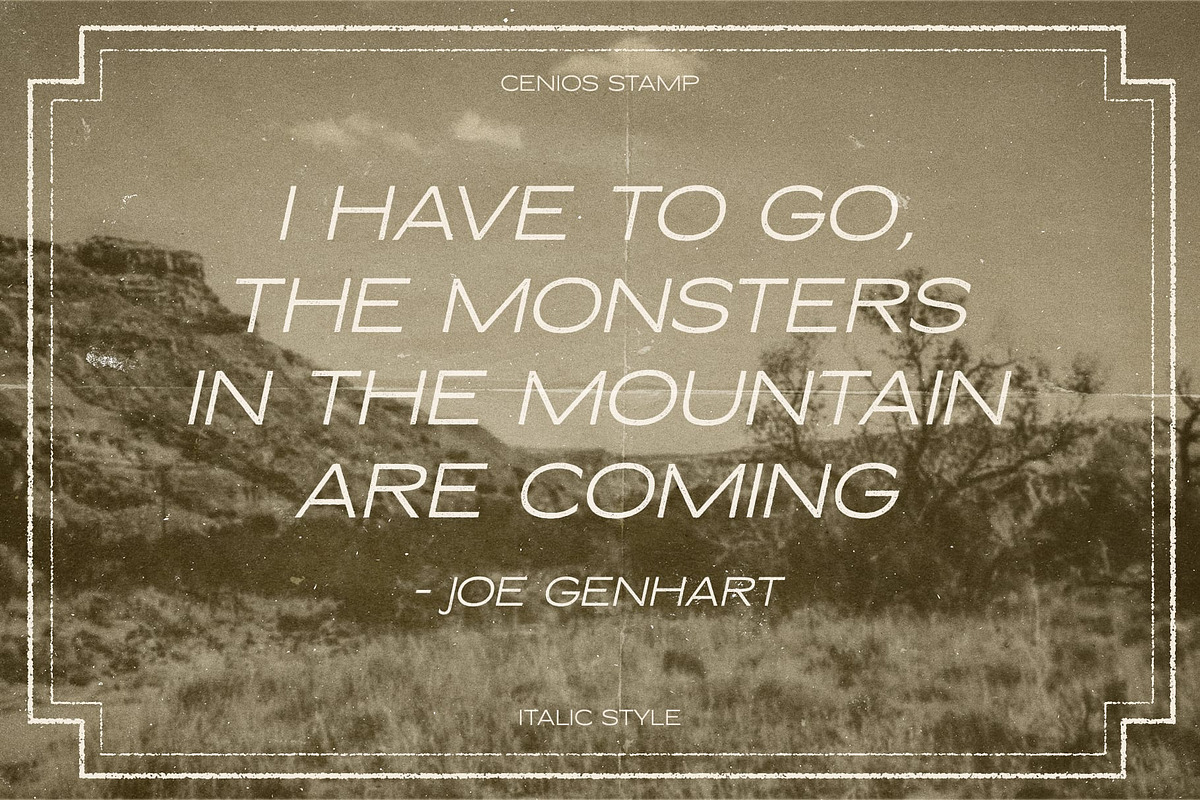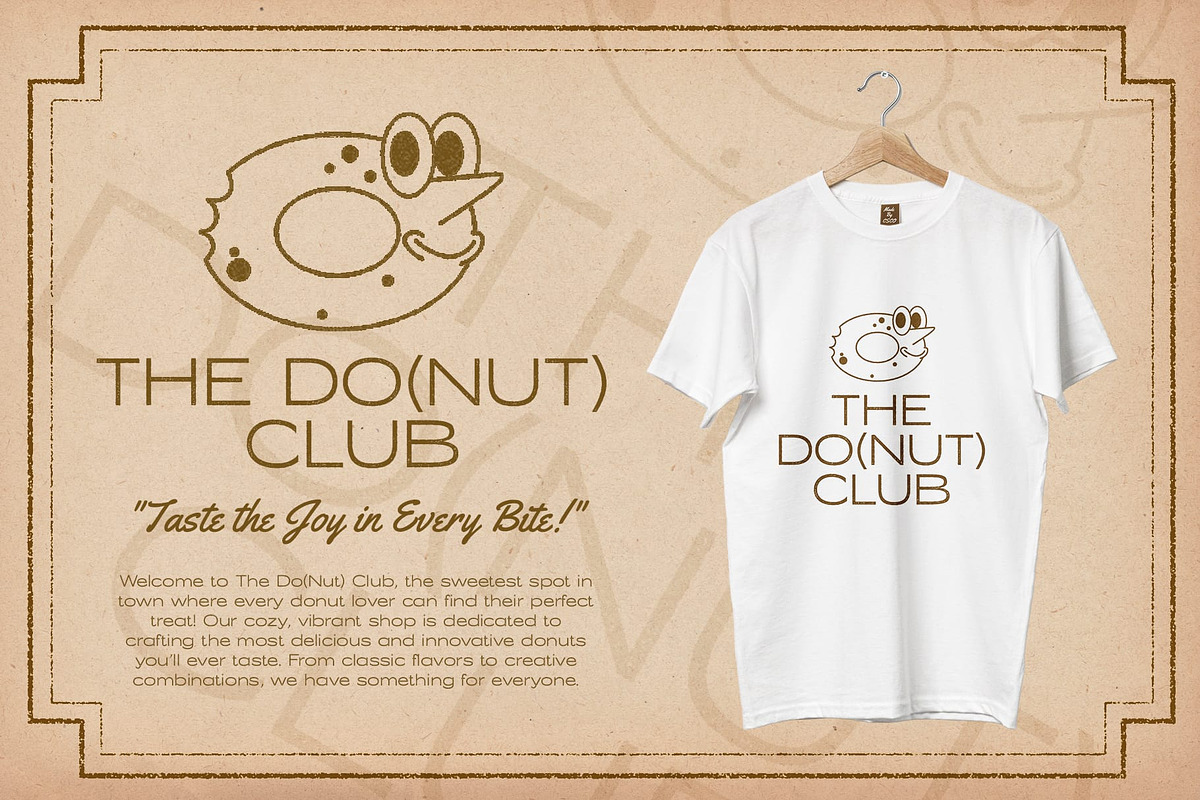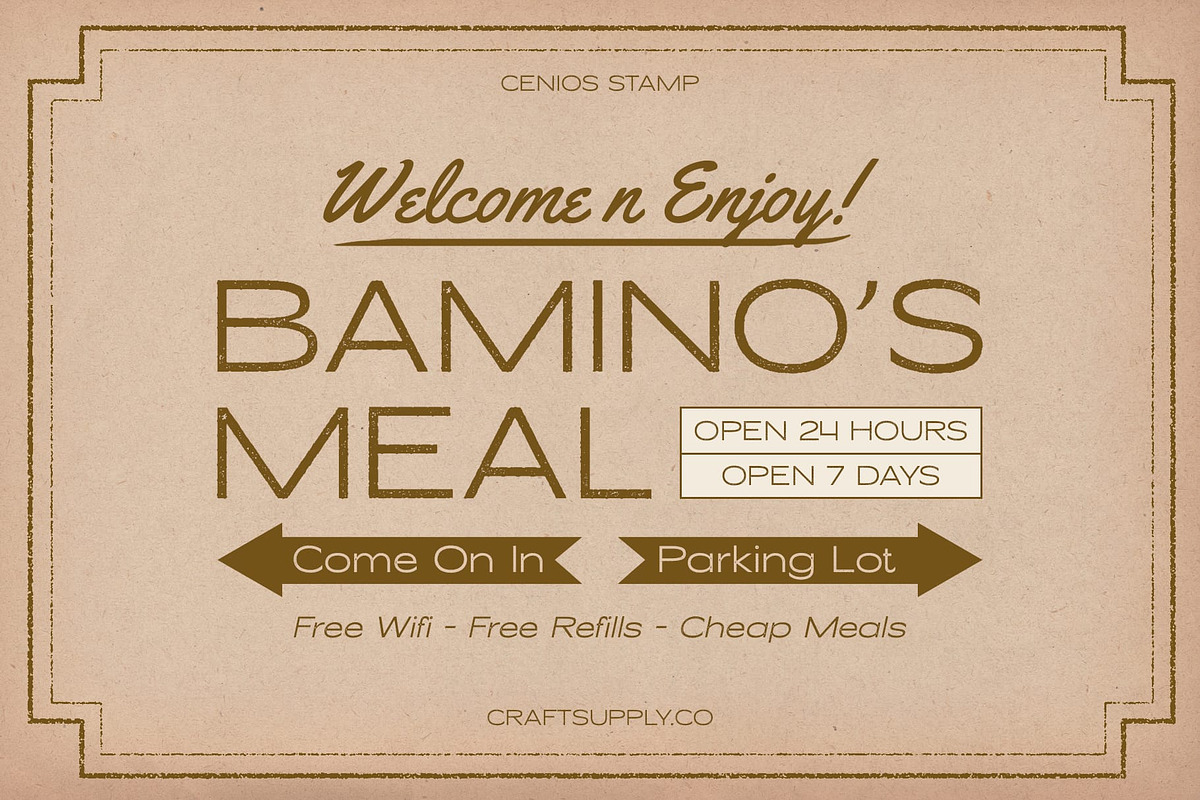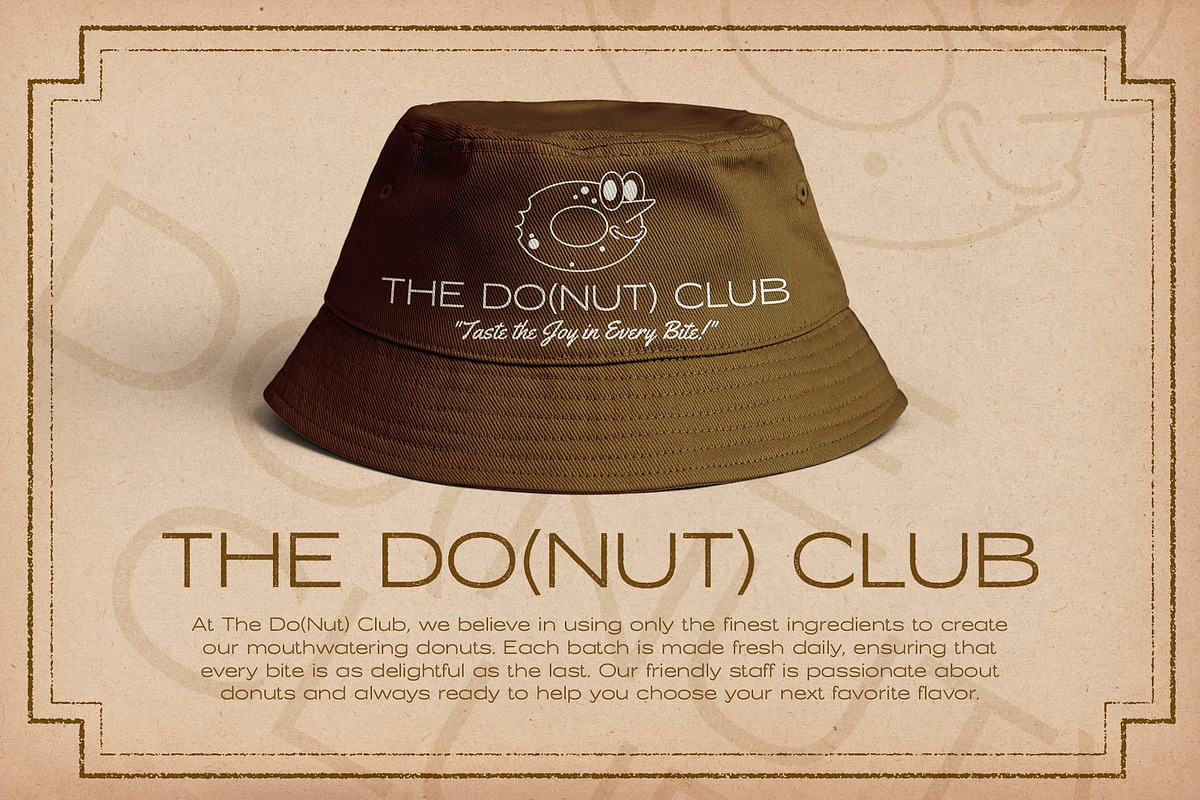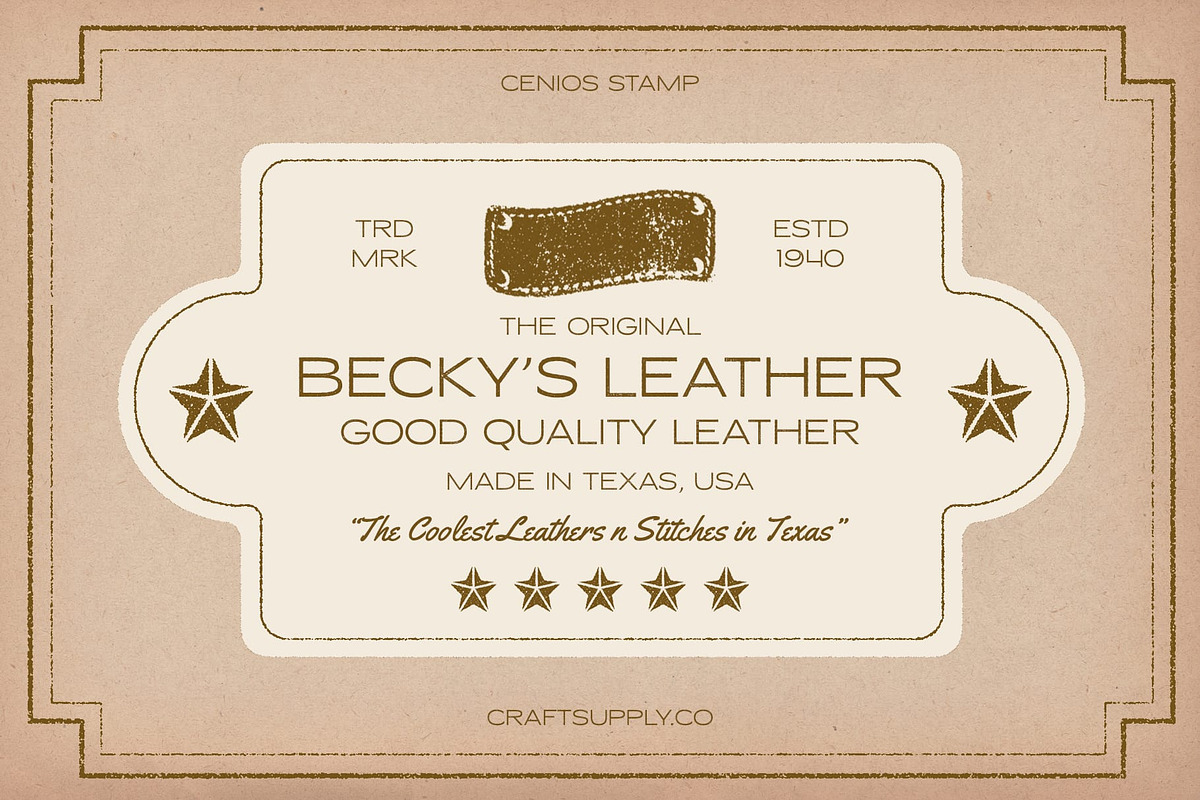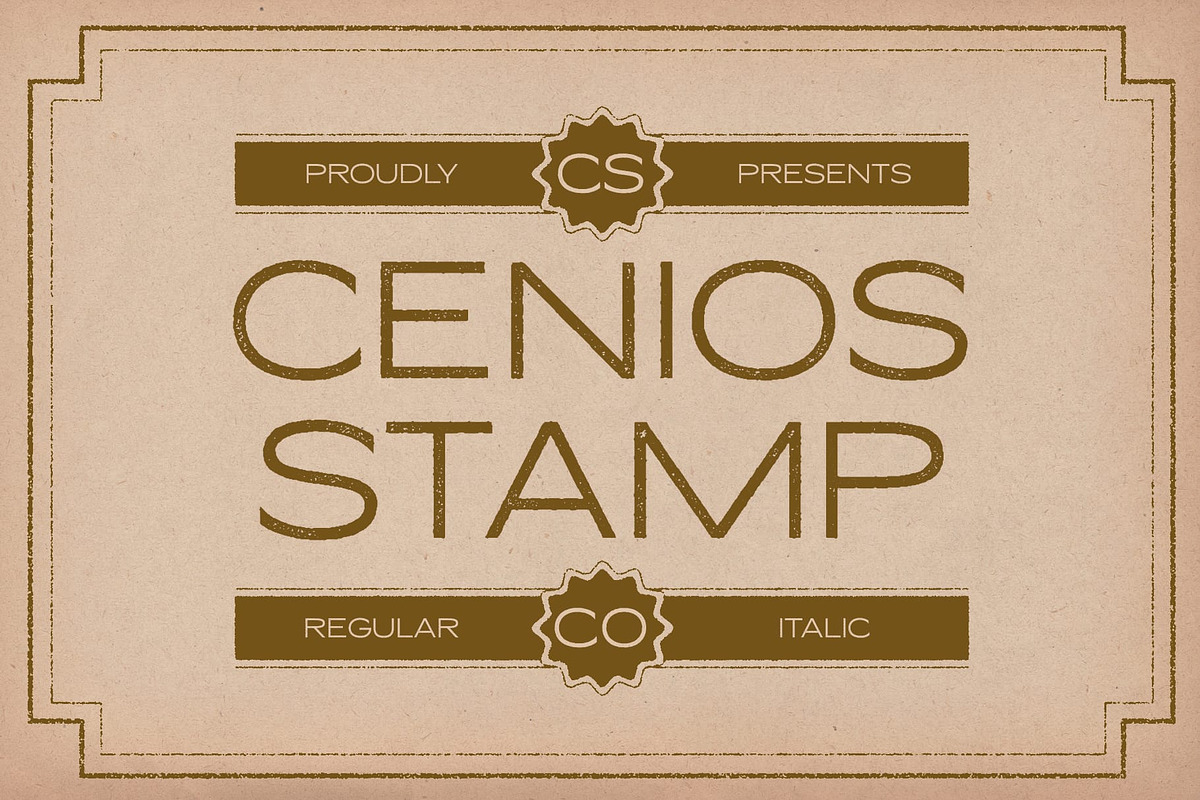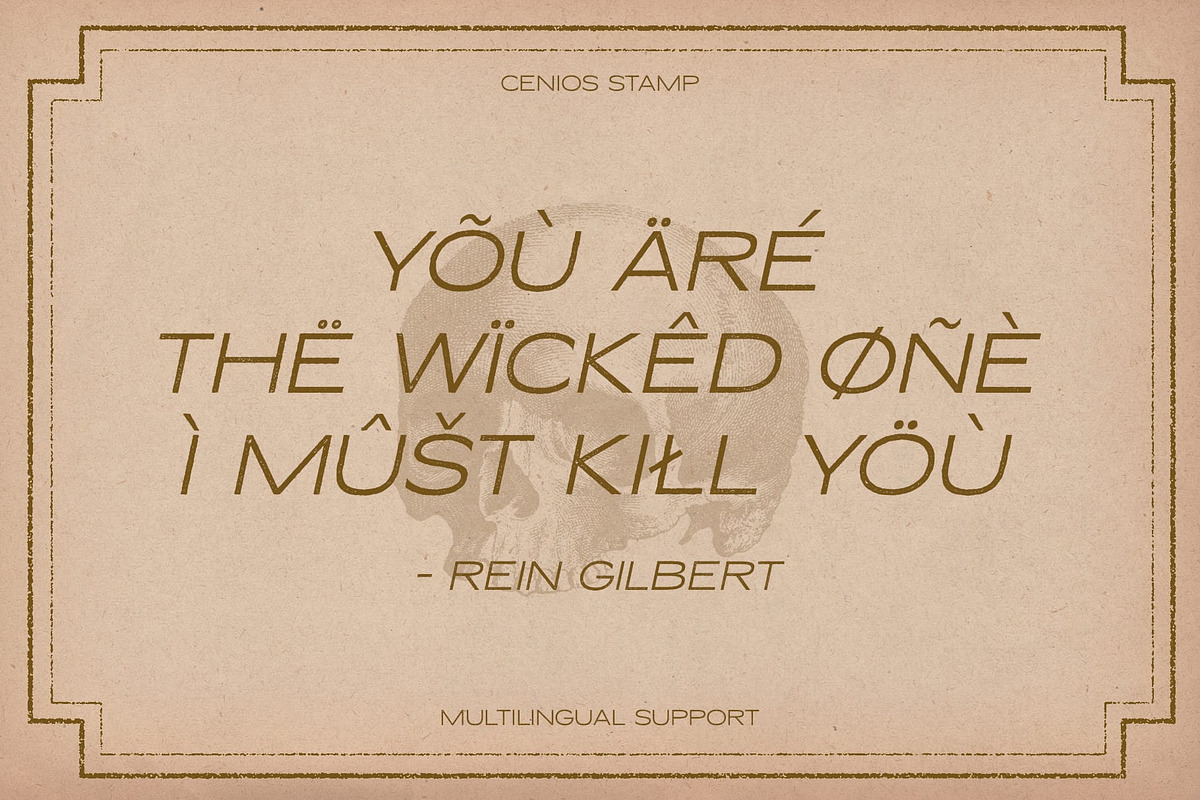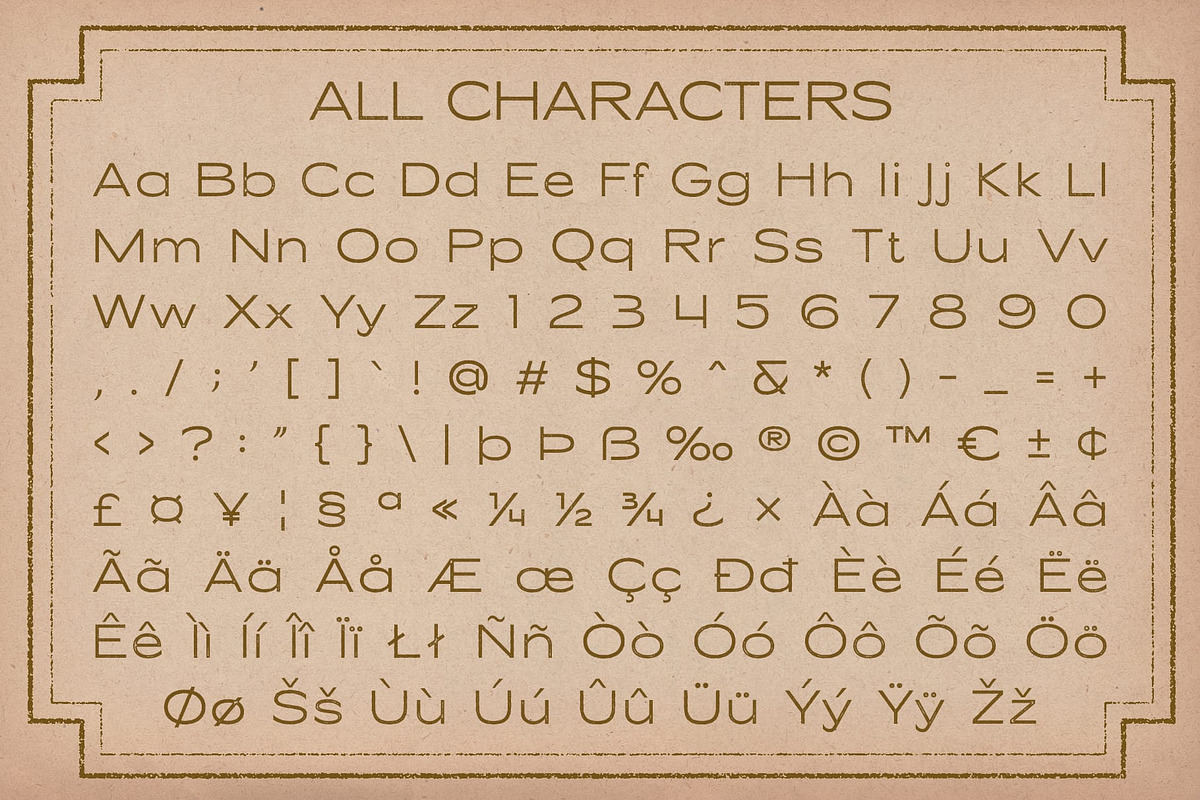
Cenios Stamp
Cenios Stamp Font: Modern Sans-Serif with a Textured Twist
Expanded Design for Bold Impact Cenios Stamp is a modern sans-serif font distinguished by its expanded shape and wide, open letterforms. The increased spacing between the letters ensures a clean, readable look, making it ideal for bold and impactful displays where clarity and presence are essential.
Textured Stamp Effect The unique stamp effect adds a textured, artistic quality to Cenios Stamp, reminiscent of manual printing techniques. This effect introduces a distinctive character to the font, blending a sense of craftsmanship with modern aesthetics. The texture enhances the font’s visual appeal, creating a sophisticated and engaging appearance.
Modern Meets Retro Cenios Stamp combines contemporary design elements with a retro touch, resulting in a font that offers both modern flair and nostalgic charm. This fusion produces a visually striking and memorable impression, perfect for designs that seek to capture attention and stand out.
Versatile for Impactful Designs Whether used for branding, posters, or promotional materials, Cenios Stamp’s combination of expanded letterforms and stamp texture makes it suitable for a variety of projects. Its modern yet retro appearance ensures it adds a unique and sophisticated touch to any design, enhancing both visual interest and readability.
- Cenios Stamp Regular
- Cenios Stamp Italic